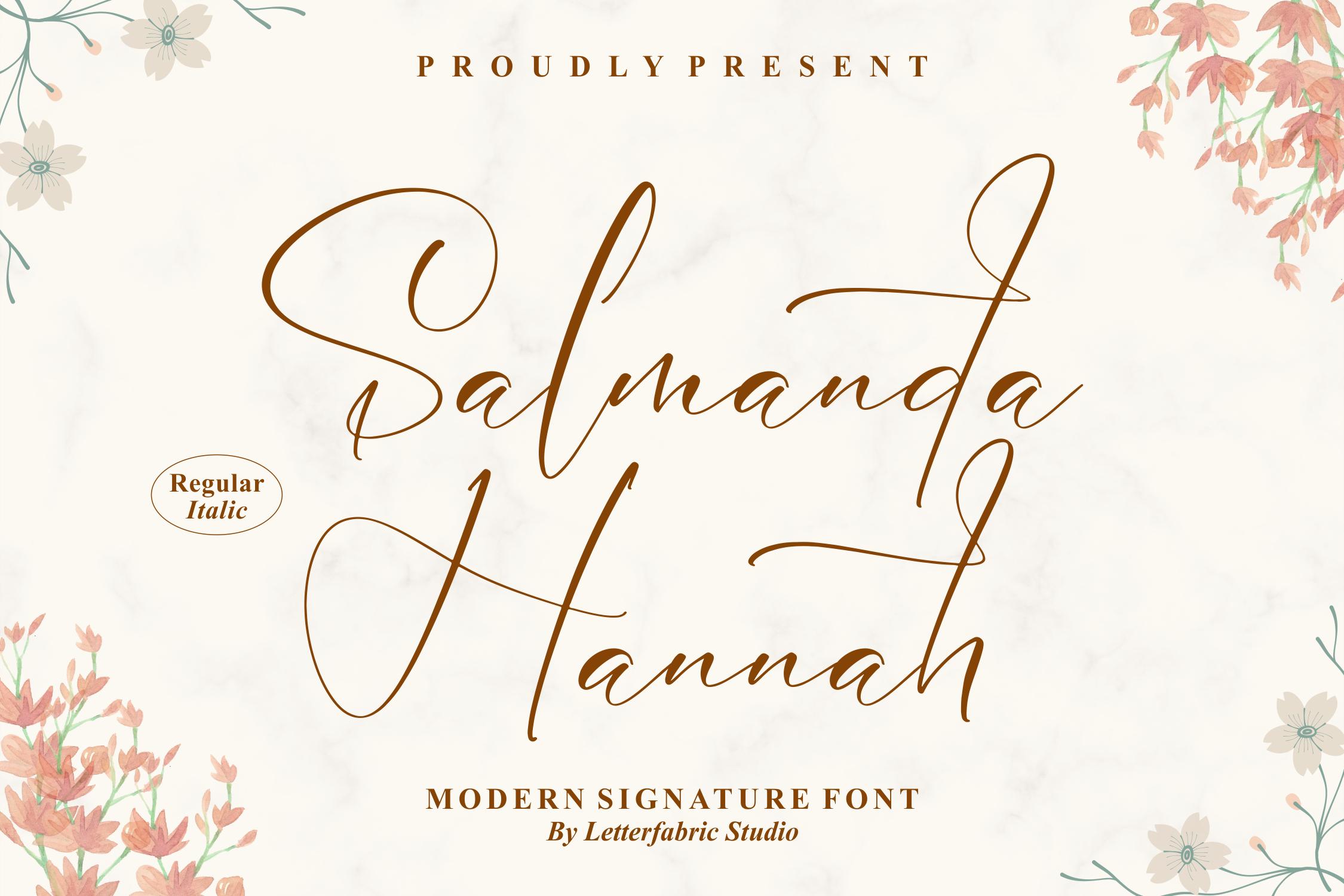
Salmanda Hannah Font Description
Salmanda Hannah is a beautiful script font, suitable for any projects such as: logos, branding projects, homeware designs, product packaging, mugs, quotes, posters, shopping bags, t-shirts, and more. This font is PUA encoded which means you can access all of the glyphs and swashes with ease!